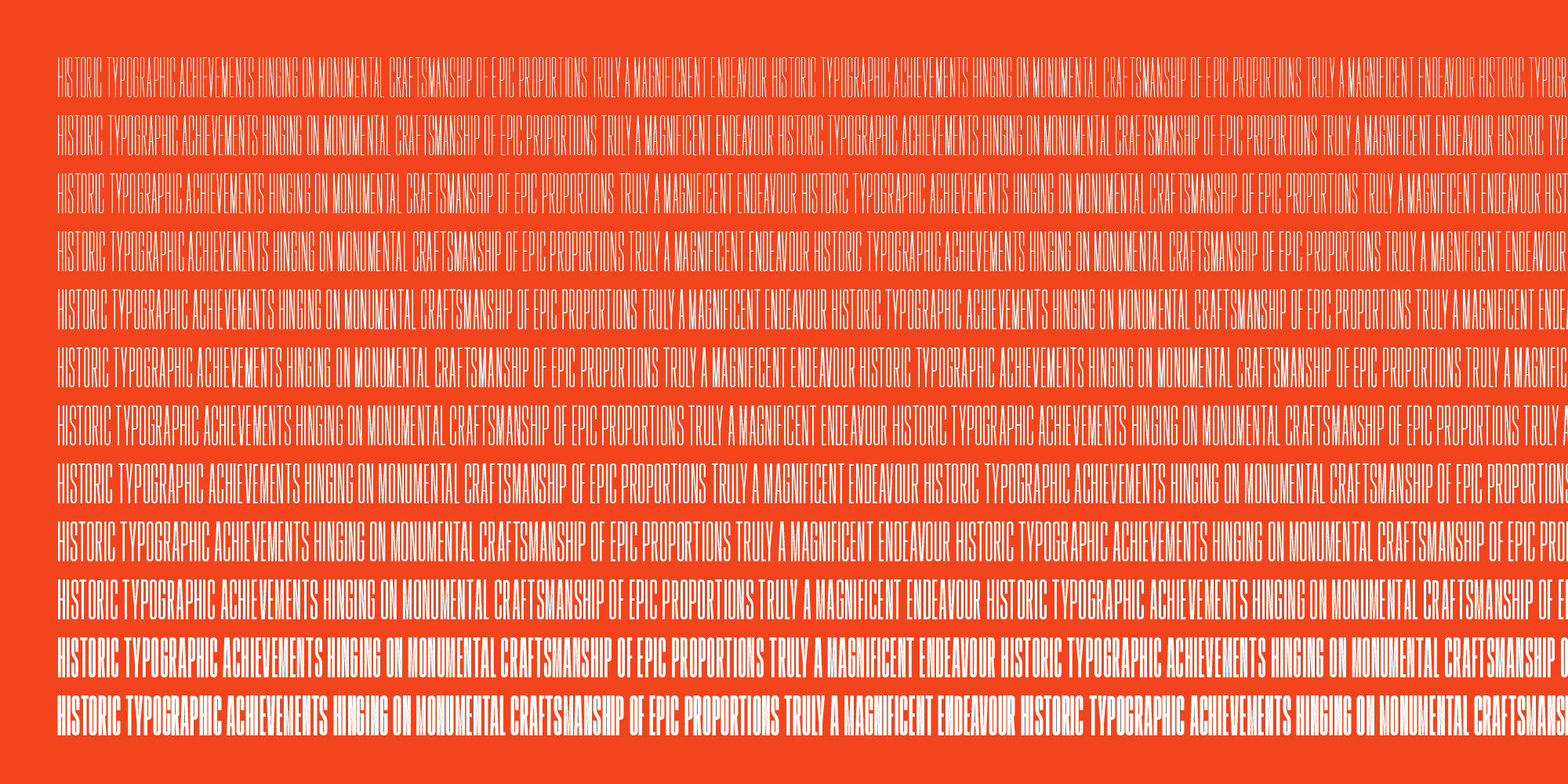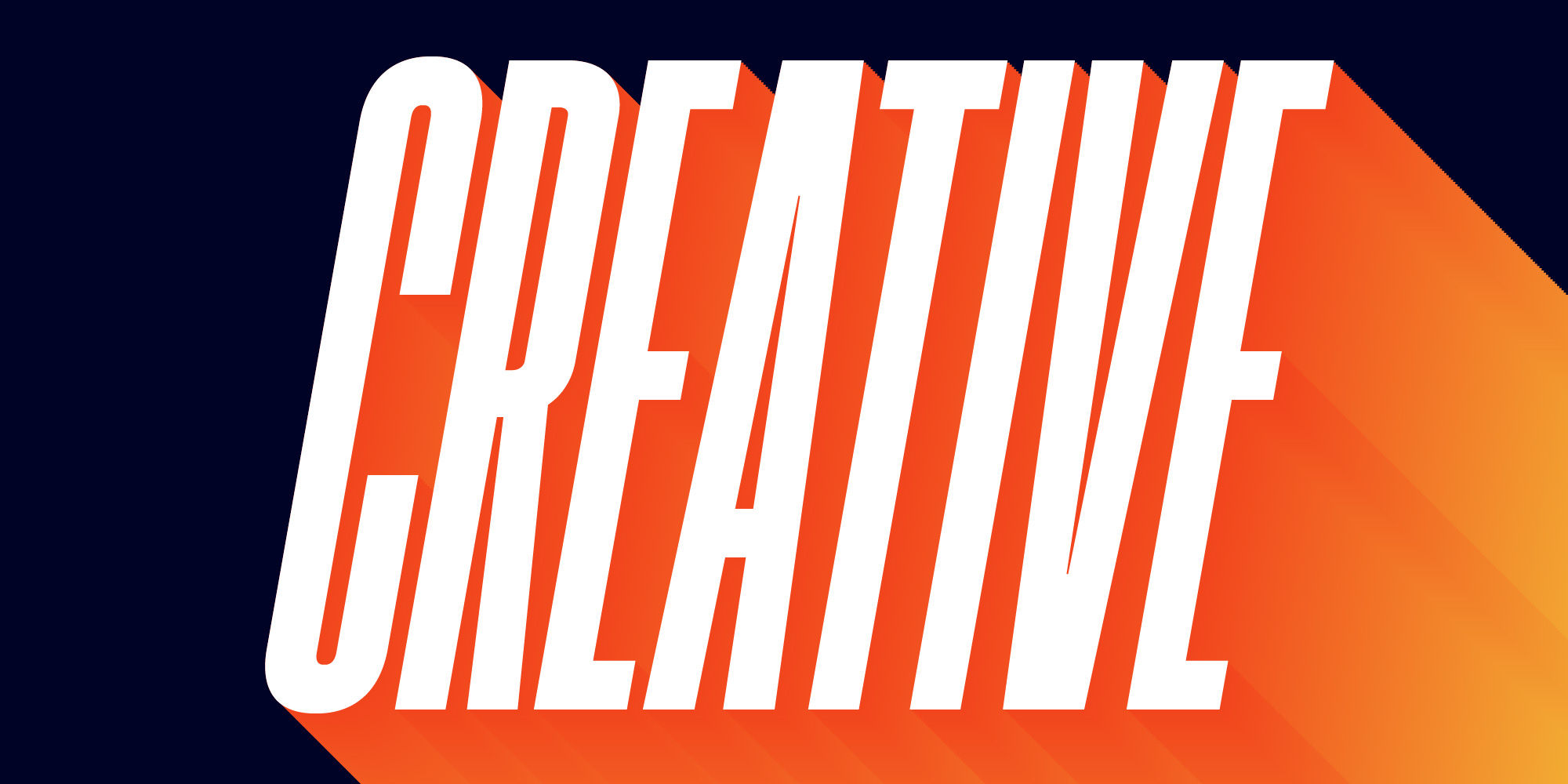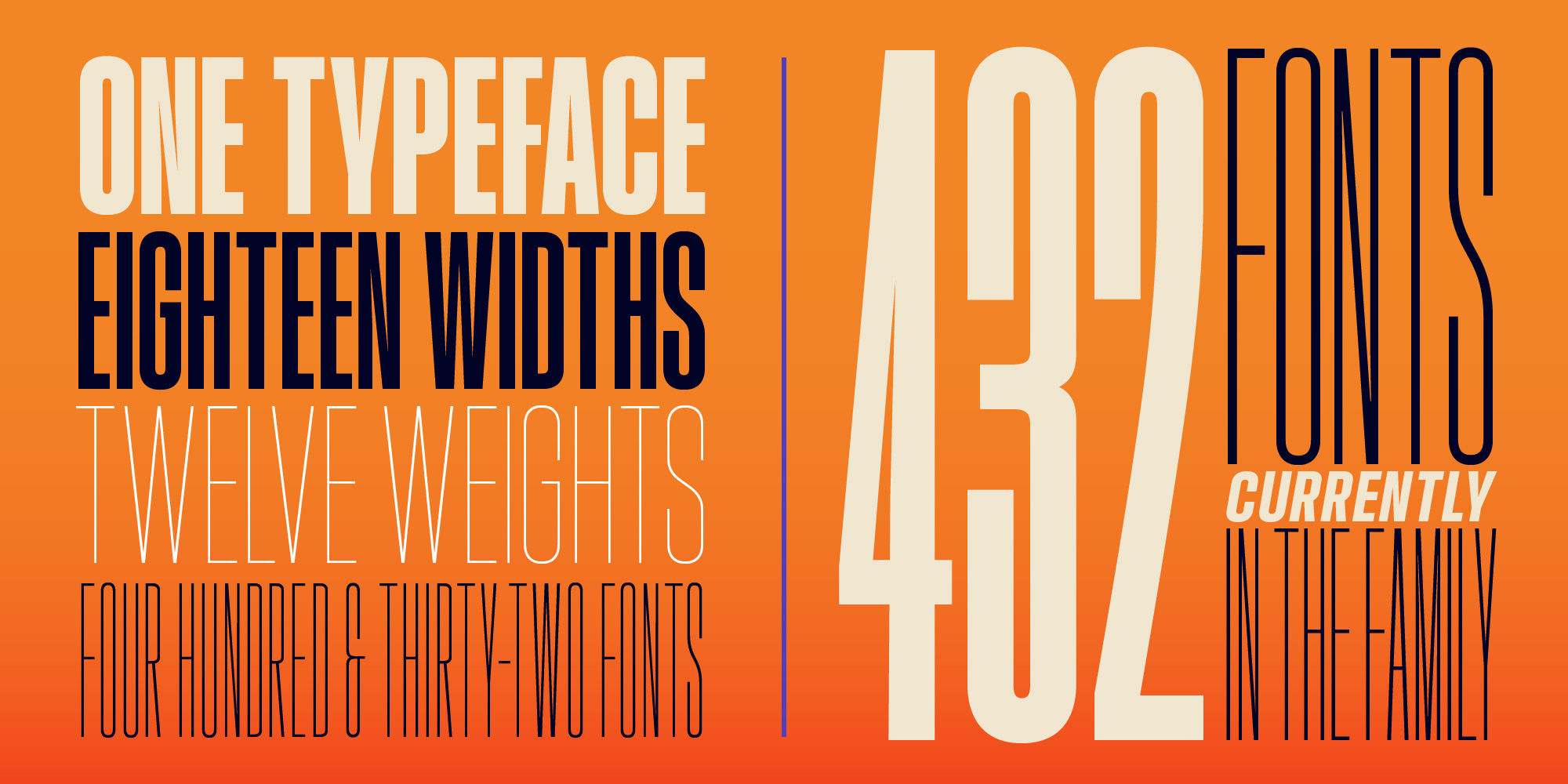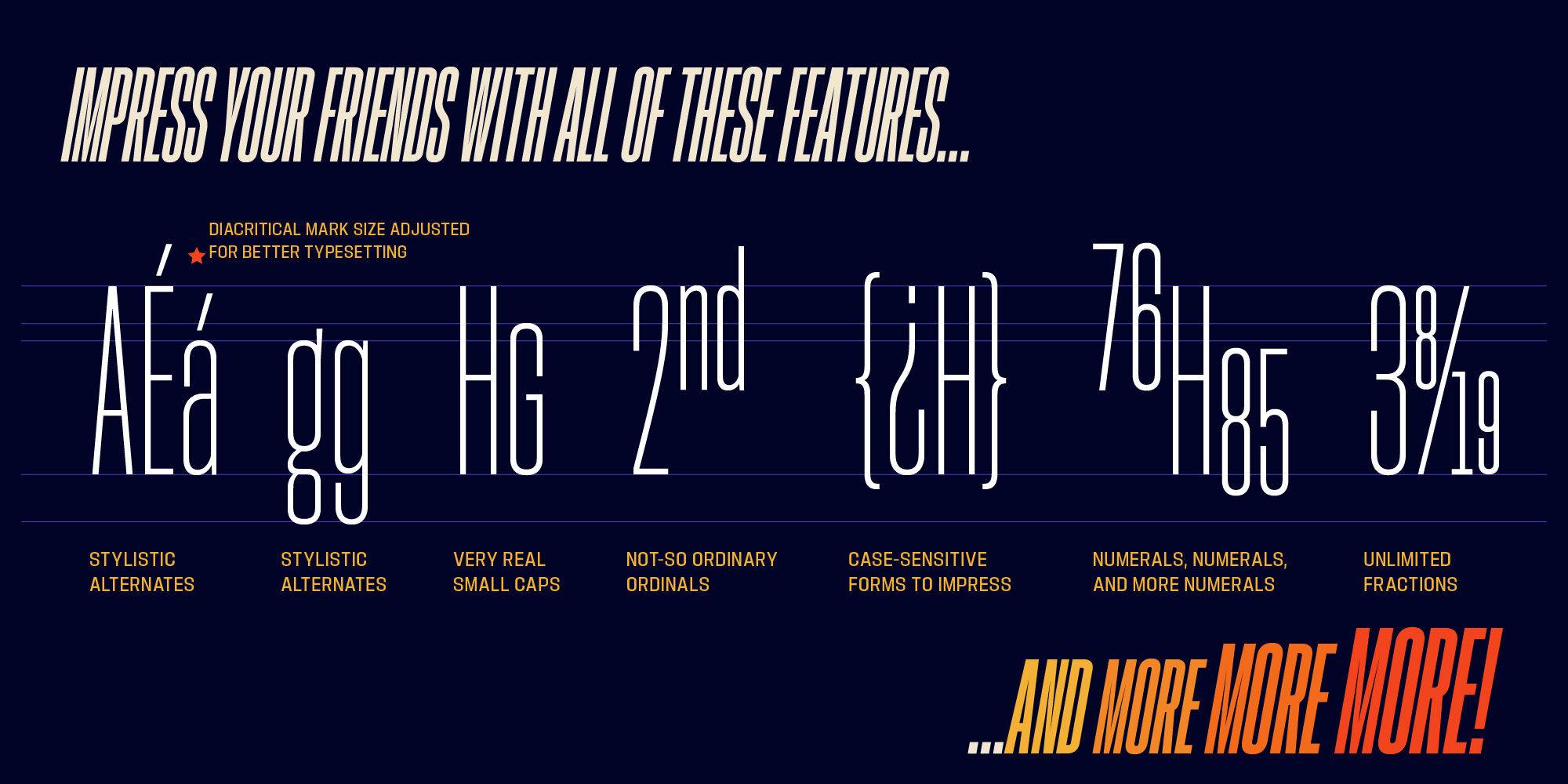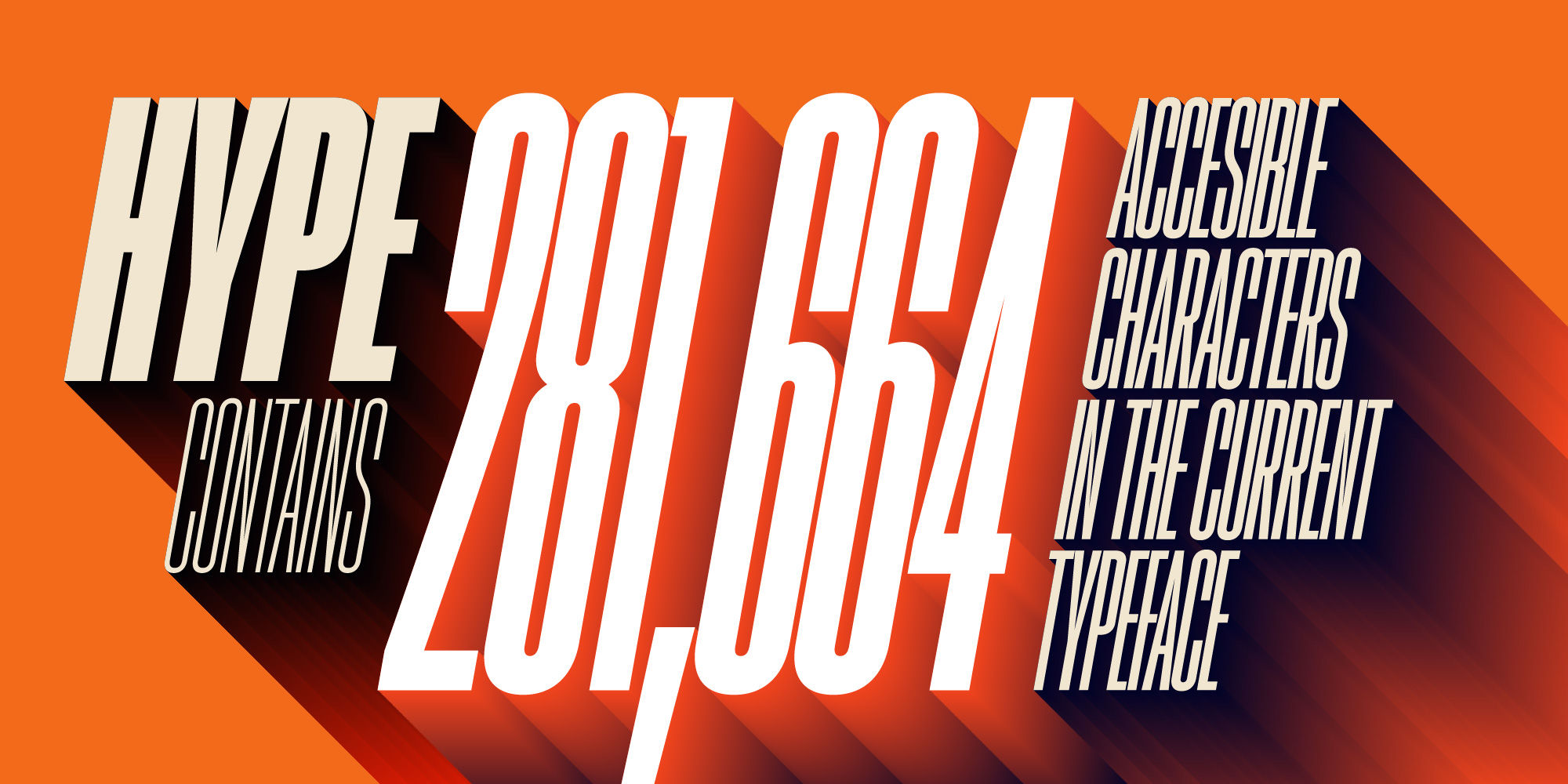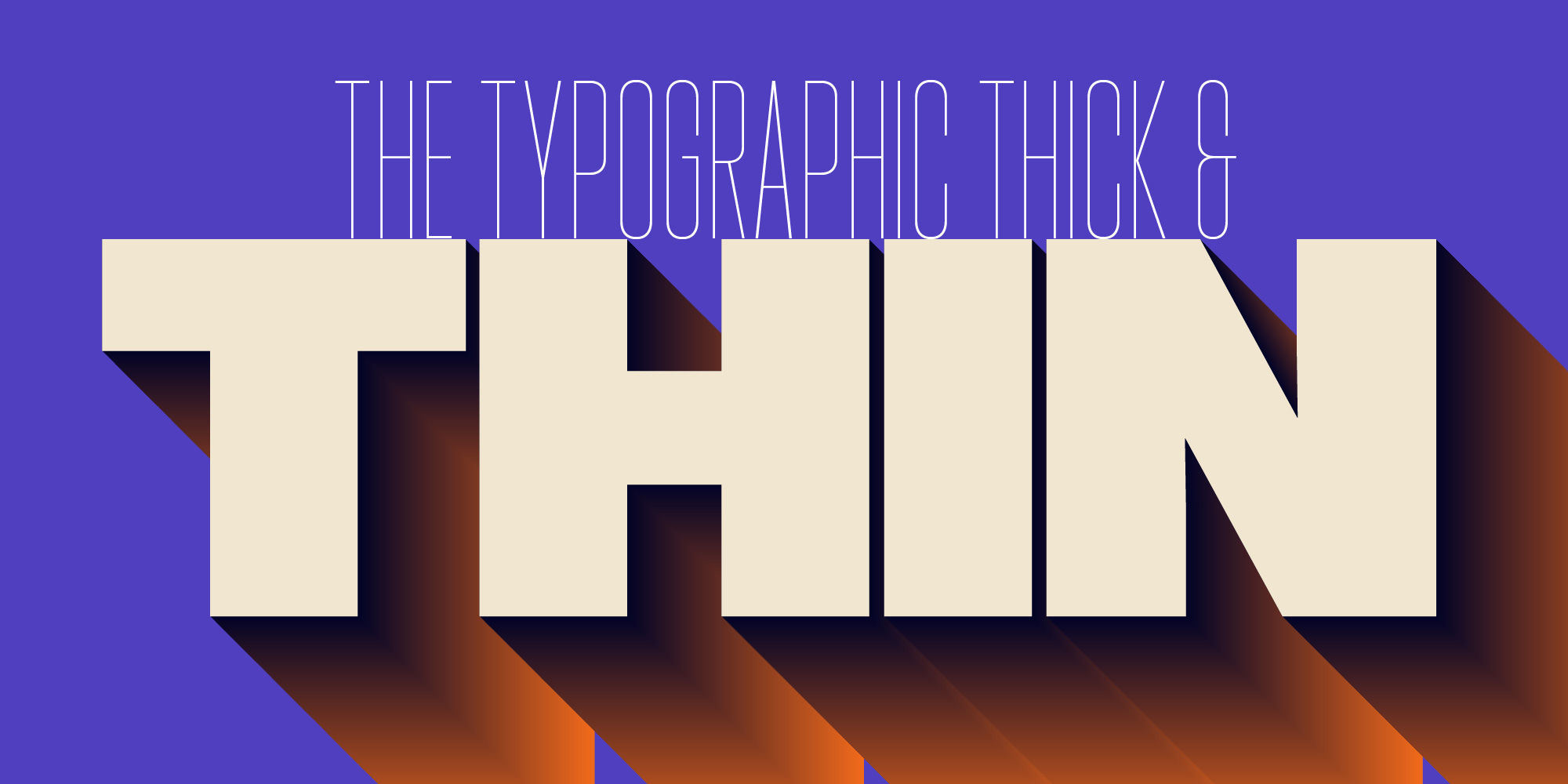
HYPE 0600
Small Capssmcp
Fractionsfrac
Superscriptsups
Scientific Inferiorssinf
Ordinalsordn
Case-Sensitive Formscase
Tabular Numeralstnum
Hype lives up to its name. An energetic attempt to blow past previous sans’ descriptive words of massive, large, extensive, super and others. Hype transcends the everyday marketing terms and rests solely atop them all with a jaw-dropping current offering of 432 fonts that spans 18 widths and 12 weights. Insert a long pause and mic drop here, because nothing compares.
Hype’s bombastic approach meant supplying everything it could within each typeface: including small caps, yes small caps, a full numeral set that includes inferiors and superiors, super- and subscripts, full fraction support, case-sensitive forms, stylistic alternate letterforms, and more while touting a full Western, Central and South Eastern European character support.
Embracing a Univers-esque bravado and a willingness to push the envelope, Hype leaves even more room to grow. No corners were cut, no shortcuts taken with a focus on sensible, efficient letter construction and functional reliability that ignores any one classification and instead looks to form an amalgam of classic sans styles influenced by wood type, movie showcards, and urban industrial letterforms.